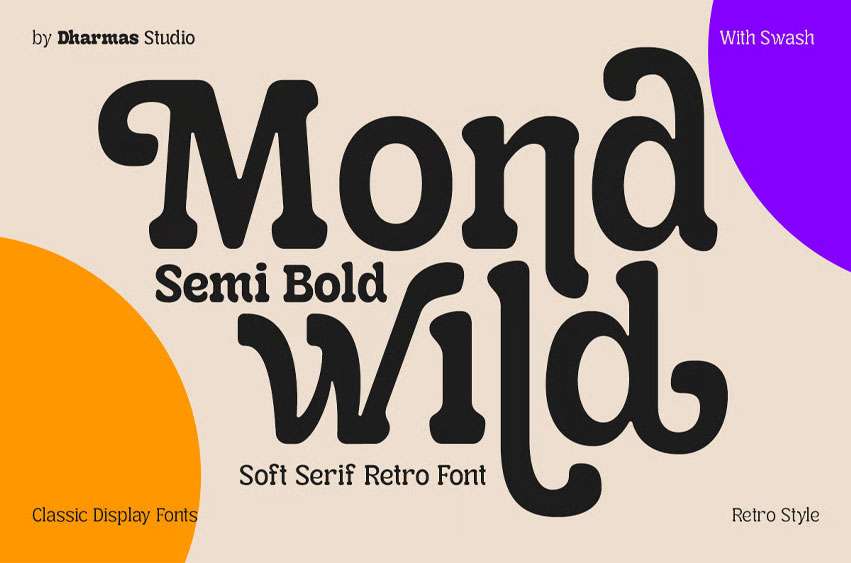
Mondwild Bold Font Semi Bold is a refined yet expressive serif typeface that brings a sophisticated vintage energy to your work. With thicker strokes and subtle curves, this weight adds emphasis while retaining the charm and character of Mondwild’s retro-modern identity.
The Semi Bold style is ideal for standout branding elements. It offers just the right amount of strength and rhythm to draw attention while staying effortlessly aesthetic. With 100+ ligatures and stylistic alternates, Mondwild Semi Bold gives designers the creative tools to shape visually rich and stylish typography.
- 1 Weight: Semi Bold
- 100+ Unique Alternates and Ligatures
- Letters, numbers, symbols, punctuation, special alternates